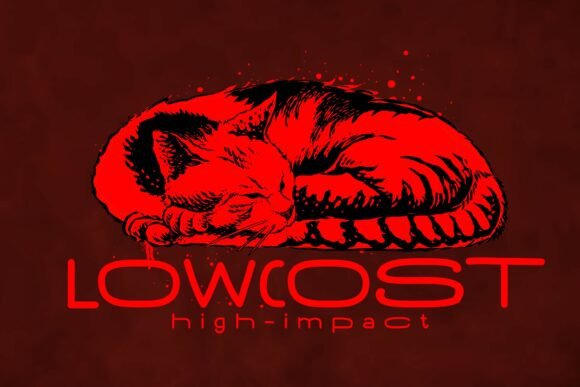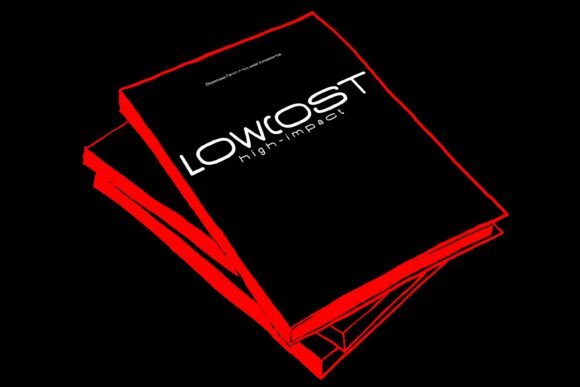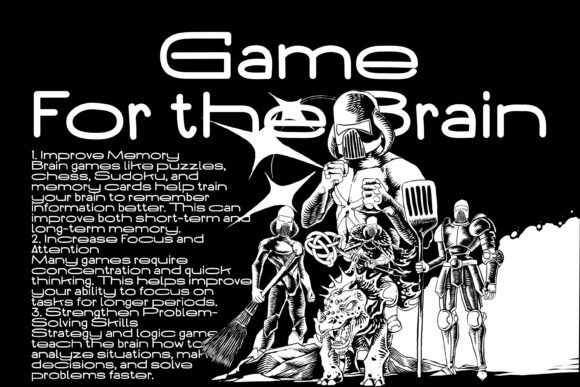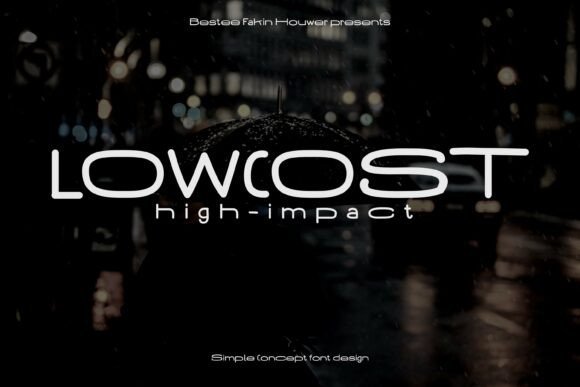
Introduction to Lowcost Highimpact Font
Lowcost Higimpact is font features a sleek futuristic style with smooth curves and minimalist letterforms.
Its rounded edges and clean structure create a modern, high-tech, and elegant appearance Perfect for logos, posters, branding, movie titles, digital projects, and sci-fi themed designs, this typeface delivers a strong visual impact with a simple yet professional look.
Key Features of Lowcost Highimpact Font
Why Choose Lowcost Highimpact Font?